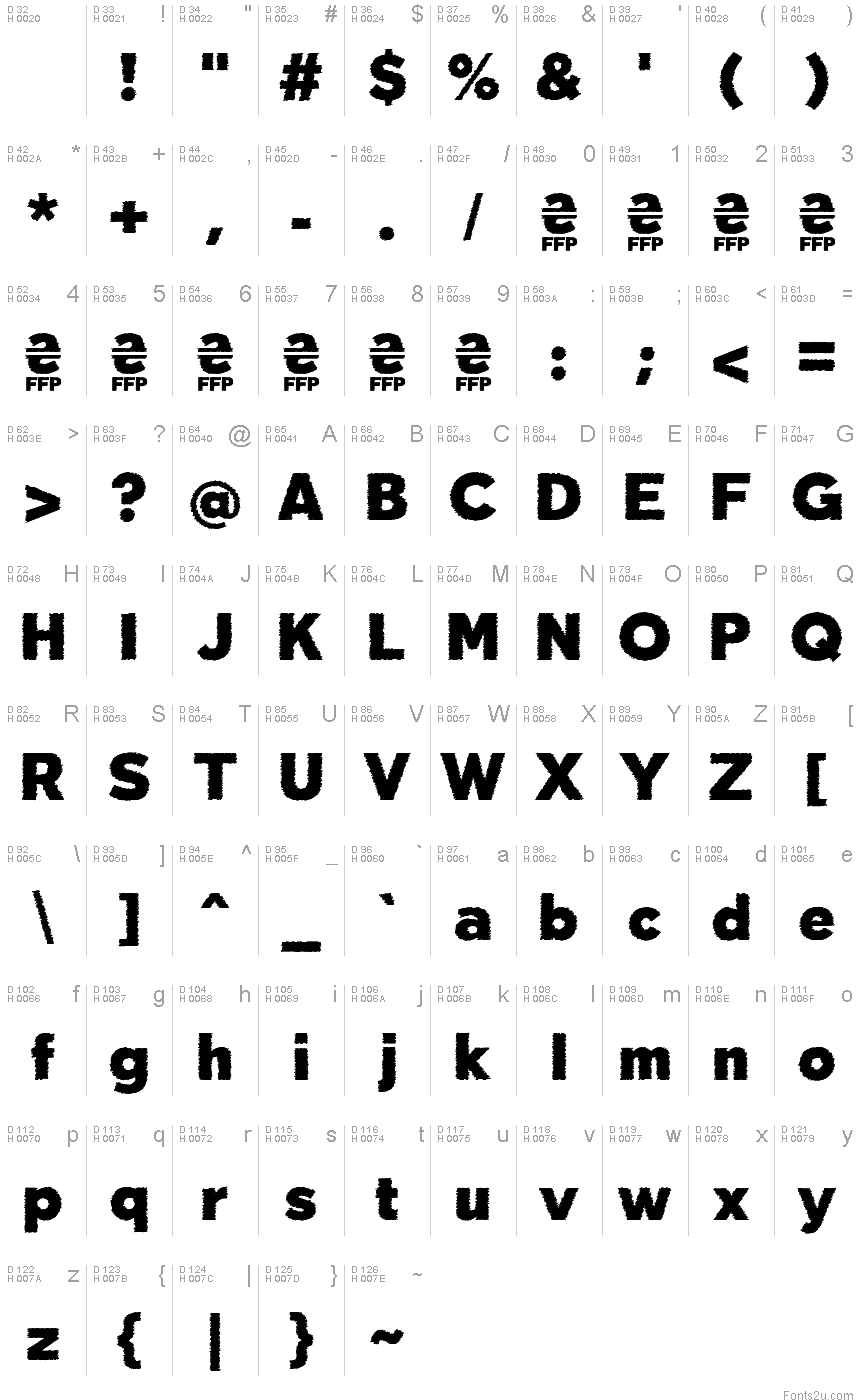
Deslucida FFP
Deslucida is a black eroded typography.
Deslucida FFP is a Font Sans-serif very readable with advanced OpenType and decorative swashes to the composition of complex texts -Commercial version-